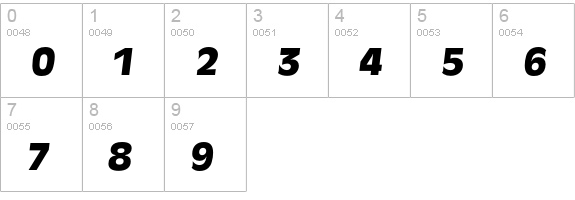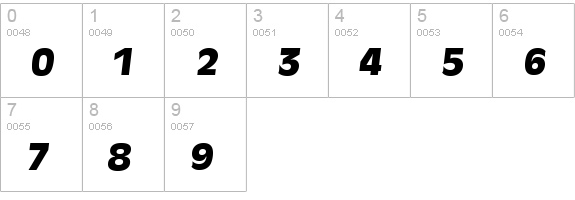
Ravenna-ExtraBoldIta Font Details
Ravenna-ExtraBoldIta is a stunningly bold and elegant font that embodies the perfect balance between modernity and sophistication. This font is the epitome of confidence and style, making it the ideal choice for any project that requires a strong and impactful visual presence. Designed with utmost precision and attention to detail, Ravenna-ExtraBoldIta carries a unique charm that sets it apart from other fonts. Its clean lines and sharp edges exude a sense of power and authority, while its italicized slant adds a touch of elegance and grace. The versatility of Ravenna-ExtraBoldIta knows no bounds. Whether you're designing a logo, creating a poster, or crafting a headline, this font effortlessly commands attention and leaves a lasting impression. Its bold weight and distinctive curves make it easily readable even at smaller sizes, ensuring that your message will be conveyed with utmost clarity. What sets Ravenna-ExtraBoldIta apart is not only its exceptional design but also its availability as a free download. FontsMarket.com offers this extraordinary font completely free of charge, allowing designers and creatives to access its beauty and functionality without any limitations. This means that you can unleash your creativity and bring your visions to life without breaking the bank. So why settle for ordinary when you can have the extraordinary? Download Ravenna-ExtraBoldIta today from FontsMarket.com and elevate your designs to new heights. Embrace the power of this stunning font and captivate your audience with its distinctive presence. Let Ravenna-ExtraBoldIta be the secret weapon in your design arsenal, and watch as your projects come to life with unparalleled impact.